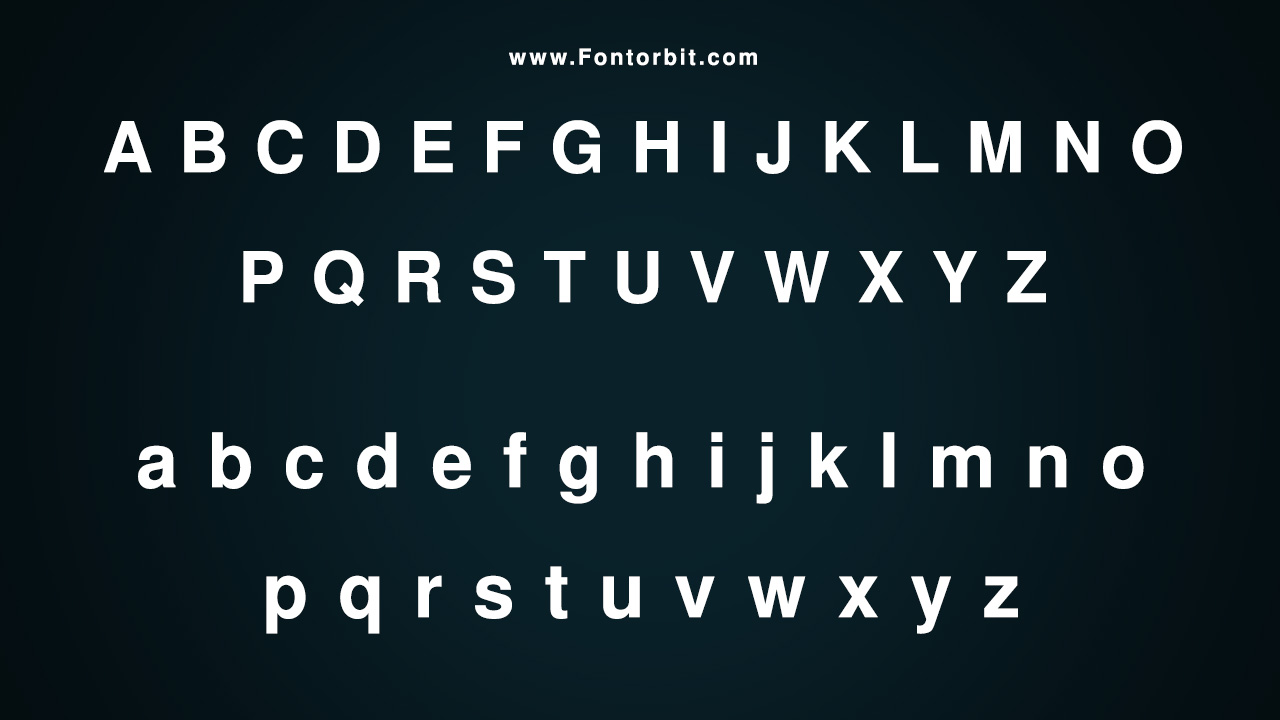
Nimbus Sans is a widely recognized sans-serif typeface designed by URW Studio and first released in 1987. It is part of the Nimbus font family and is highly regarded for its clean, modern aesthetic, similar to Helvetica.
Nimbus Sans offers excellent readability, making it suitable for digital and print applications. It was designed by URW (URW++ Design and Development GmbH), a prominent German type foundry known for its high-quality digital fonts.
Nimbus Sans Font Family Includes
Nimbus Sans is available in various weights and styles, providing flexibility for various design purposes. Its minimalist and professional look is ideal for projects that require a clean and modern font.
- Nimbus Sans Std T Bold Condensed
- Nimbus Sans Pro Light Extended
- Nimbus Sans Pro Regular Extended
- Nimbus Sans Pro Bold Extended
- Nimbus Sans Std Black Extended
- Nimbus Sans Std Ultra Light (D)
- Nimbus Sans Std Light (D)
- Nimbus Sans Std Regular (D)
- Nimbus Sans Std Bold (D)
- Nimbus Sans Std Black (D)
- Nimbus Sans Std Light Extended (D)
- Nimbus Sans Std Extended (D)
- Nimbus Sans Std Bold Extended (D)
- Nimbus Sans Std Black Extended (D)
- Nimbus Sans Std Black Extended Outline (D)
- Nimbus Sans Std Bold Outline (D)
- Nimbus Sans Std Initials Bold (D)
- Nimbus Sans Std Light
- Nimbus Sans Std T Light Italic
- Nimbus Sans Std Regular
- Nimbus Sans Std T Italic
- Nimbus Sans Std Bold
- Nimbus Sans Std T Bold Italic
- Nimbus Sans Std T Black
- Nimbus Sans Std T Black Italic
- Nimbus Sans Std Light Italic (D)
- Nimbus Sans Std Italic (D)
- Nimbus Sans Std Bold Italic (D)
- Nimbus Sans Std Black Italic (D)
- Nimbus Sans Std Light Condensed (D)
- Nimbus Sans Std Light Condensed Italic (D)
- Nimbus Sans Std Condensed (D)
- Nimbus Sans Std Condensed Italic (D)
- Nimbus Sans Std Bold Condensed (D)
- Nimbus Sans Std Bold Condensed Italic (D)
- Nimbus Sans Std Black Condensed (D)
- Nimbus Sans Std Black Condensed Italic (D)
Notable Uses Of Nimbus Sans
Nimbus Sans is widely used in industries where clarity, readability, and a modern aesthetic are essential. Some notable uses include:
- Corporate Branding and Logos
- Editorial Design and Publications
- User Interfaces and Web Design
- Advertising and Marketing Materials
Nimbus Sans is perfect for use in contexts where readability and a clean design are priorities. It’s ideal for:
- Corporate materials like presentations and reports
- Web design and mobile app interfaces
- Editorial design, such as magazines and newspapers
- Print advertising, posters, and brochures
- Branding and identity design
Here are some free alternatives to Nimbus Sans that offer a similar design aesthetic:
- Liberation Sans
- DejaVu Sans
- TeX Gyre Heros
- Roboto
Nimbus Sans is a versatile and modern font that can be used in various contexts, from corporate branding to web design. Its similarities to Helvetica make it a reliable choice for designers who need a clean and professional typeface that is widely accessible.
1.What Font Family Does Nimbus Sans Belong To?
Nimbus Sans is part of the Nimbus font family, a collection of sans-serif fonts.
3.What Are Some Free Alternatives To Nimbus Sans?
Liberation Sans, DejaVu Sans, TeX Gyre Heros, and Roboto are similar free fonts.
4.Is Nimbus Sans Good For Print Materials?
Yes, it’s excellent for both print and digital materials due to its high legibility.
5.What Notable Uses Does Nimbus Sanshave?
It is popular in corporate branding, web design, and editorial work.
6.Can Nimbus Sans Be Used For Websites?
Yes, its clean lines and readability make it ideal for web design and UI/UX projects.
7.Is Nimbus Sans Similar To Helvetica?
Yes, Nimbus Sans shares many design characteristics with Helvetica.